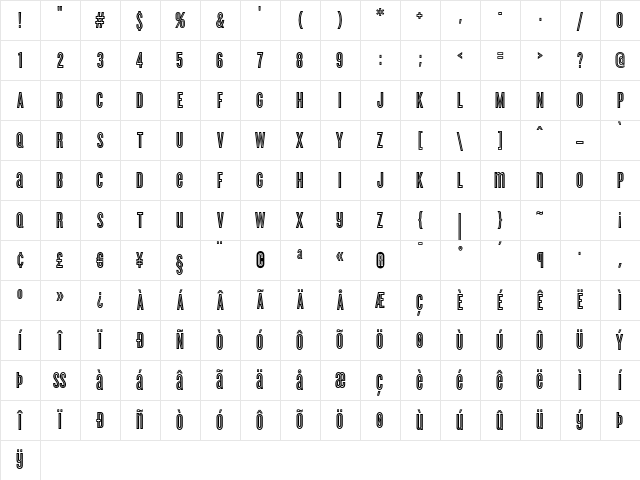
Complete Cyclone Shaded glyph index. Displaying only characters natively supported by Cyclone Shaded font.
Cyclone is a composed and adaptable typeface that performs quietly and consistently across a wide range of design contexts.
Who designed the Cyclone Shaded font?
This font was published by C) - Hoefler & Frere-Jones Typography, Inc. Check the technical specs section for copyright and designer details.